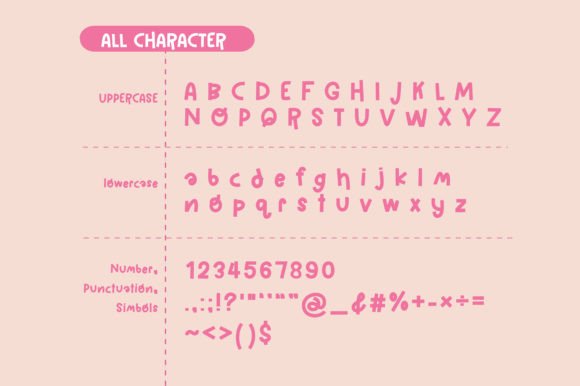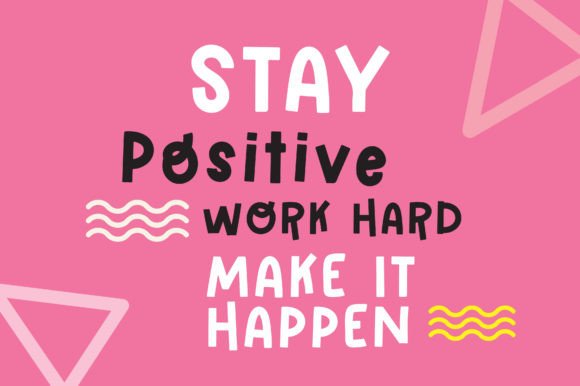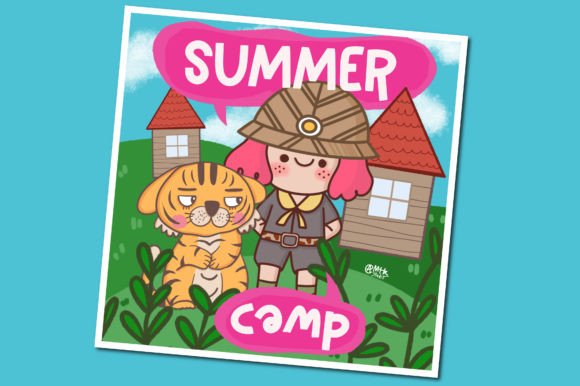
Mtk Happy Font: Free Download Now
Unveil the joyful charm of MTK HAPPY Font – a captivating blend of neat handwriting and fresh, sans serif simplicity.
Imbued with child-like innocence, this clean, handwritten digital note font breathes life into your digital planning, note-taking, and study notes experiences like no other Embrace the organized clutter of college notes and more with MTK HAPPY, a font that celebrates simplicity and class.